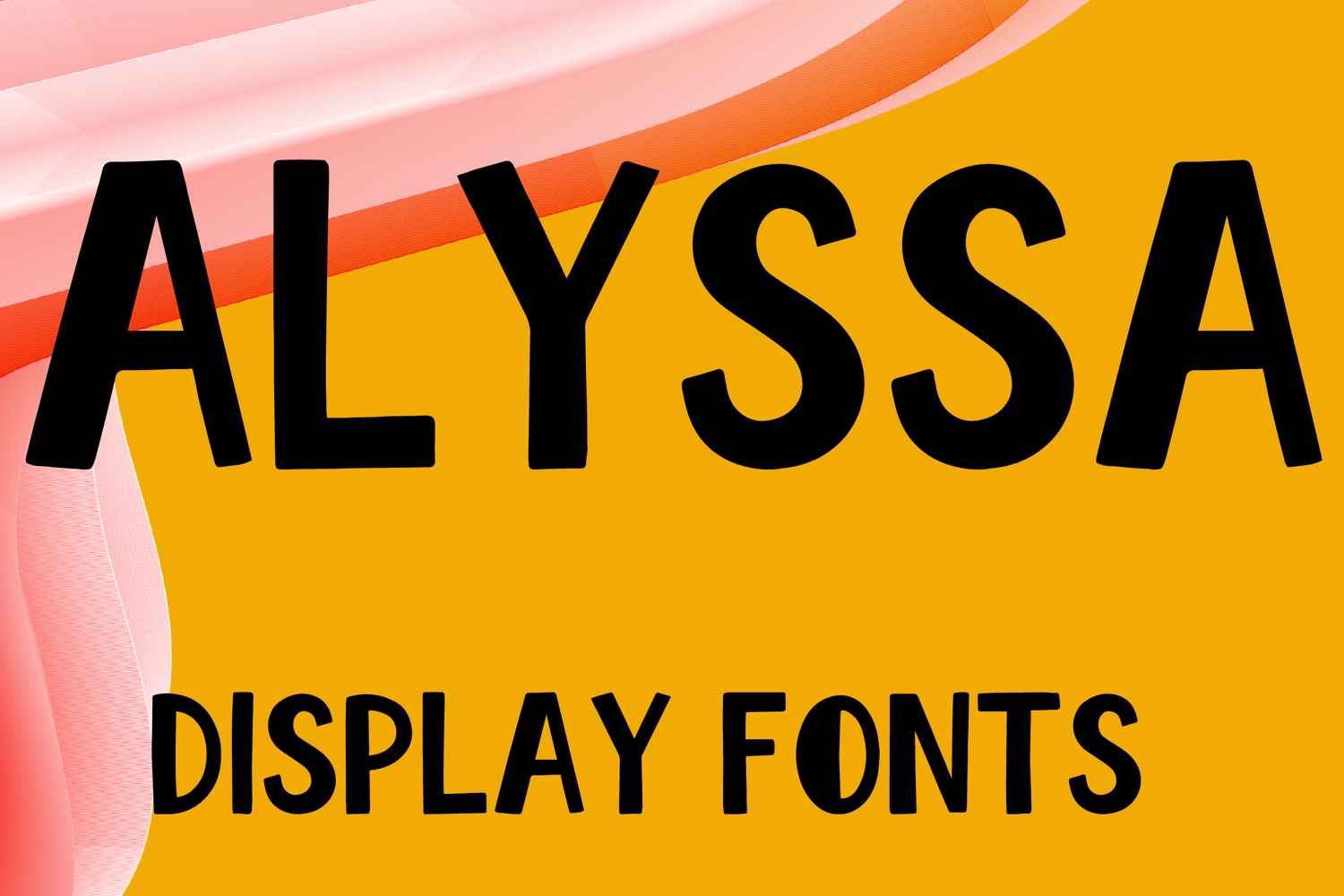
ALYSSA
ALYSSA is a bold display font with a tall handcrafted style and strong modern character. Its uppercase letterforms feature thick strokes, smooth curves, and slightly irregular details that create a playful, eye-catching, and confident look. Designed with uppercase letters A–Z and numbers 0–9, ALYSSA is perfect for branding, posters, packaging, logos, social media graphics, invitations, and creative projects that need a stylish and memorable statement.